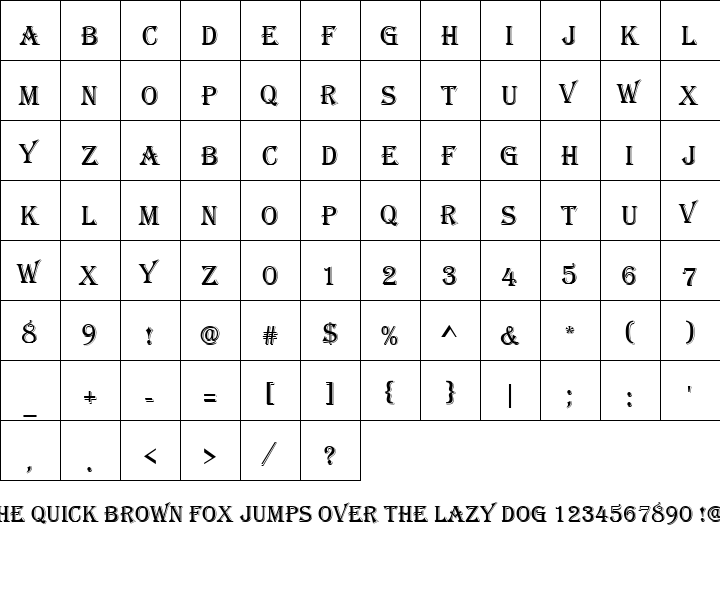
Today we are introducing a typeface that is a member of the Serif Font Family named Algerian Font. This typeface has a decorative and clean texture visualization. This typeface is considered the most used font style since the time it was released in many notable places like Microsoft Office.
This typeface was utilized in the Patrón Tequilas brand’s logo. This font style is also well-known for its copy and paste functions. Covers, logos, and T-shirt designs, among other things, use this textured style.
Because of its slender appearance, it’s also ideal for homeware designs, branding projects, and adding stunning overlay text to any photo design. This font is also suitable for contemporary projects and websites. This typeface has also been used in a number of other intriguing and innovative projects.
It is also well-known among designers due to its formal and attractive text features. Many companies use this typeface to represent their brands and projects.
This typeface has a formal and beautiful texture visualization, and it makes the designs more graceful. As a result, many designers incorporate it into a wide range of projects and concepts.
Designer of Algerian Font
Alan Meeks and Philip Kelly two well-reputed typographic and graphic designer has created this elegant typeface, especially for a foundry named Scangraphic. It has been originally created in the uppercase letter for display purposes.
But in 2005 Michael Hagemann who works in the FontMesa industry upgraded this font by adding lower case letters.
This texture is comprised of its own family of typefaces. Each style in this family features capital letters, small letters, glyphs, punctuation, numerals, symbols, and special characters, as well as language support. These styles are mentioned below: –
- Algerian Regular
- Algerian Condensed
View of Algerian Font
| Name | Algerian Font |
| Style | Serif |
| Designer | Alan Meeks and Philip Kelly |
| Foundry | Scangraphic |
It can support up to 89 languages.
What font family is Algerian?
This Serif typeface family has a decorative texture visualization. This typeface is considered the most used font style since the time it was released in many notable places like Microsoft Office.
Who created the Algerian font?
Alan Meeks and Philip Kelly two well-reputed typographic and graphic designer has created this elegant typeface, especially for a foundry named Scangraphic.
What font is closest to Algerian Font?
Some of the typographies have an eerily similar feel to this design. The Freda font, on the other hand, is quite similar to this font. As an alternative to the Freda font, this typeface can be utilized.